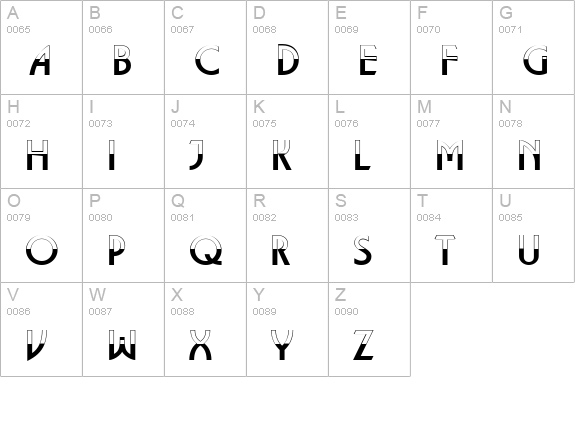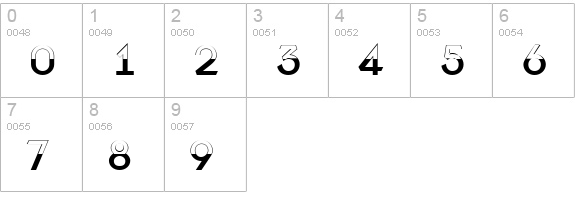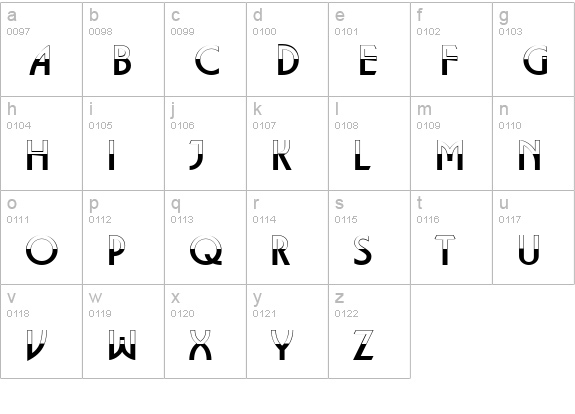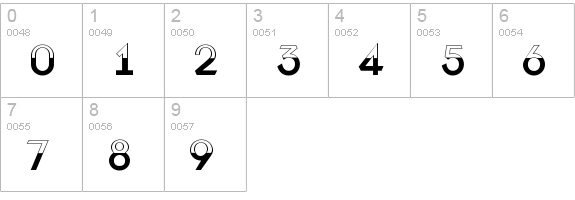
a_LancetB&W Font Details
The LancetB&W font is a sleek and modern typeface that exudes sophistication and elegance. Its bold lines and sharp angles make it perfect for creating eye-catching designs that demand attention. The contrast between black and white in this font adds a touch of drama and flair to any project. Best of all, the LancetB&W font is available for free download at FontsMarket.com. This means you can add this stunning font to your collection without breaking the bank. Whether you're working on a branding project, a poster design, or a website layout, the LancetB&W font will elevate your work to the next level. Download it today and see the difference it can make in your designs.